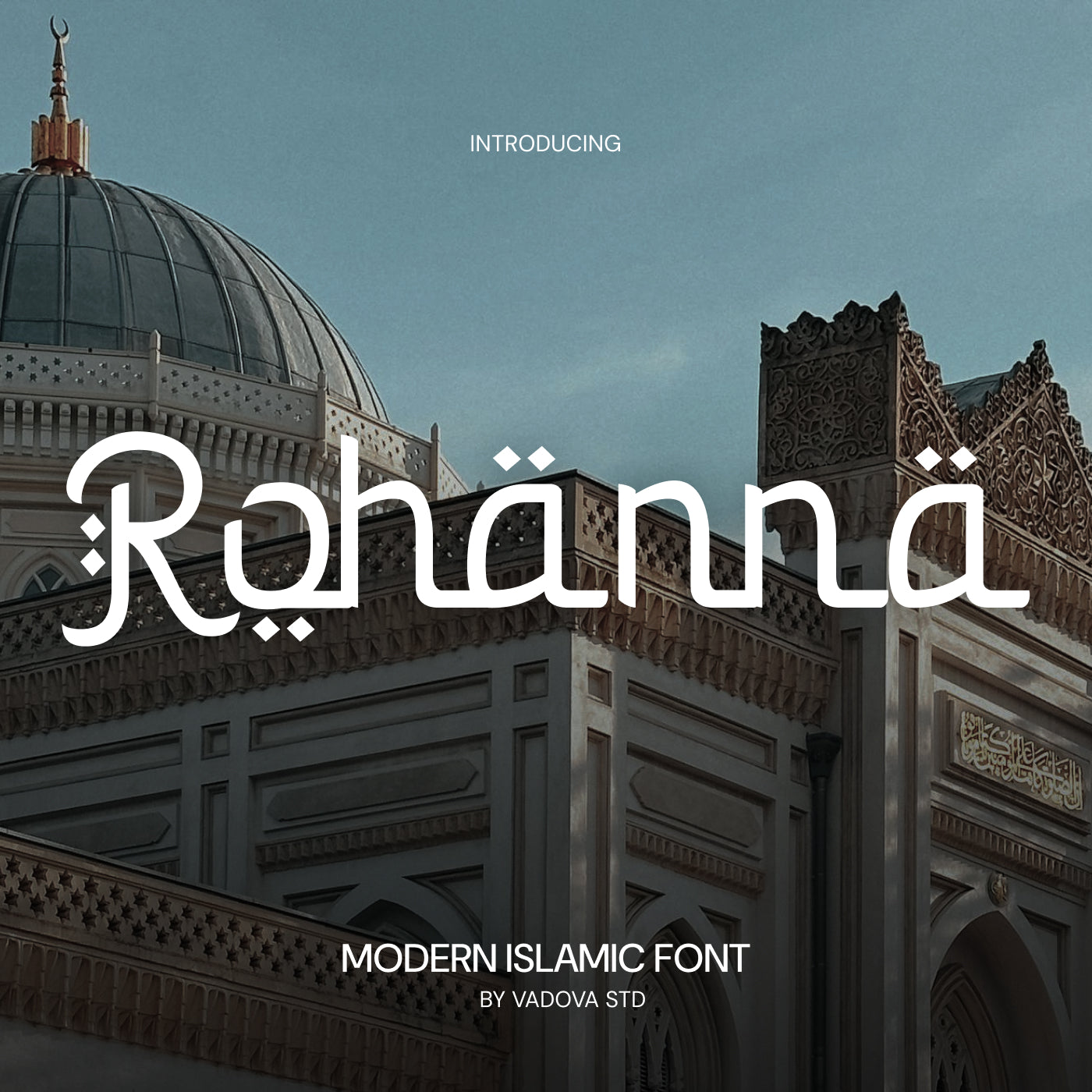
Rohanna Modern Islamic Font
Rohanna is a modern Islamic display font that beautifully merges contemporary sans-serif structure with Middle Eastern ornamental inspiration. This font exudes a spiritual yet sophisticated energy perfectly balancing heritage and modernism. it’s a visual bridge between timeless Islamic elegance and today’s design demands. Whether you're designing for Eid promotions or crafting modern brand identities, Rohanna delivers the spiritual tone your message needs without compromising modern readability. This typeface answers the call for culturally respectful yet trend-conscious typography. Perfectly suited for designers who want to honor Islamic traditions in contemporary compositions.
Suitable for Ramadan and Eid banners, mosque event flyers, Islamic conference branding, halal beauty packaging, Middle Eastern restaurant menus, modern Quranic quote posts, faith-based blog headers, Eid cards, Islamic app interfaces, hijab fashion branding, children's book covers, halal food labels, luxury abaya brands, Quranic calligraphy styles, YouTube thumbnails, journaling templates, Arabic learning materials, typography posters, Ramadan countdowns, and cultural video titles.
Rohanna Modern Islamic Font is a contemporary display typeface that combines a sans-serif structure with Middle Eastern ornamental elements. It includes uppercase and lowercase characters, numerals, and punctuation, and is available in TTF, OTF, and WOFF formats.